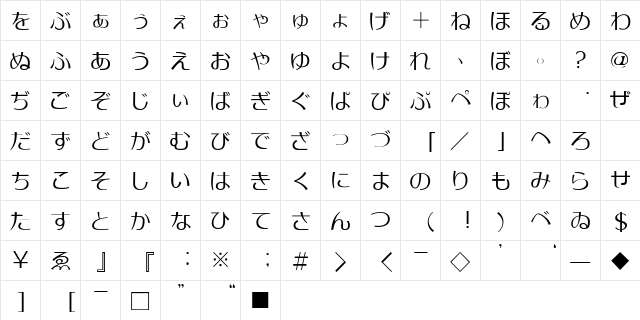
MoonbeamsHiragana Regular
Design Context for MoonbeamsHiragana Typeface
MoonbeamsHiragana is a composed and adaptable typeface that performs quietly and consistently across a wide range of design contexts.